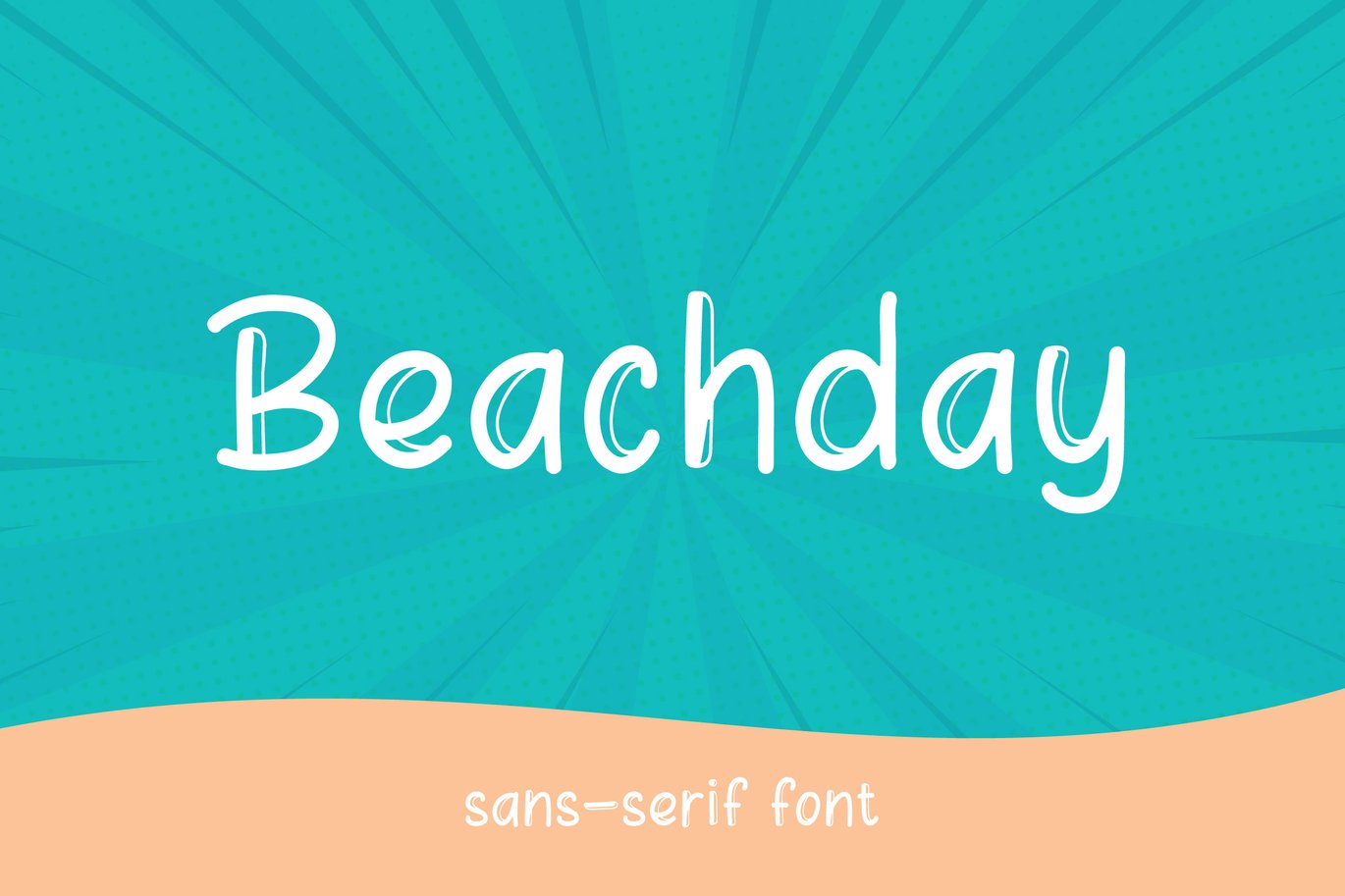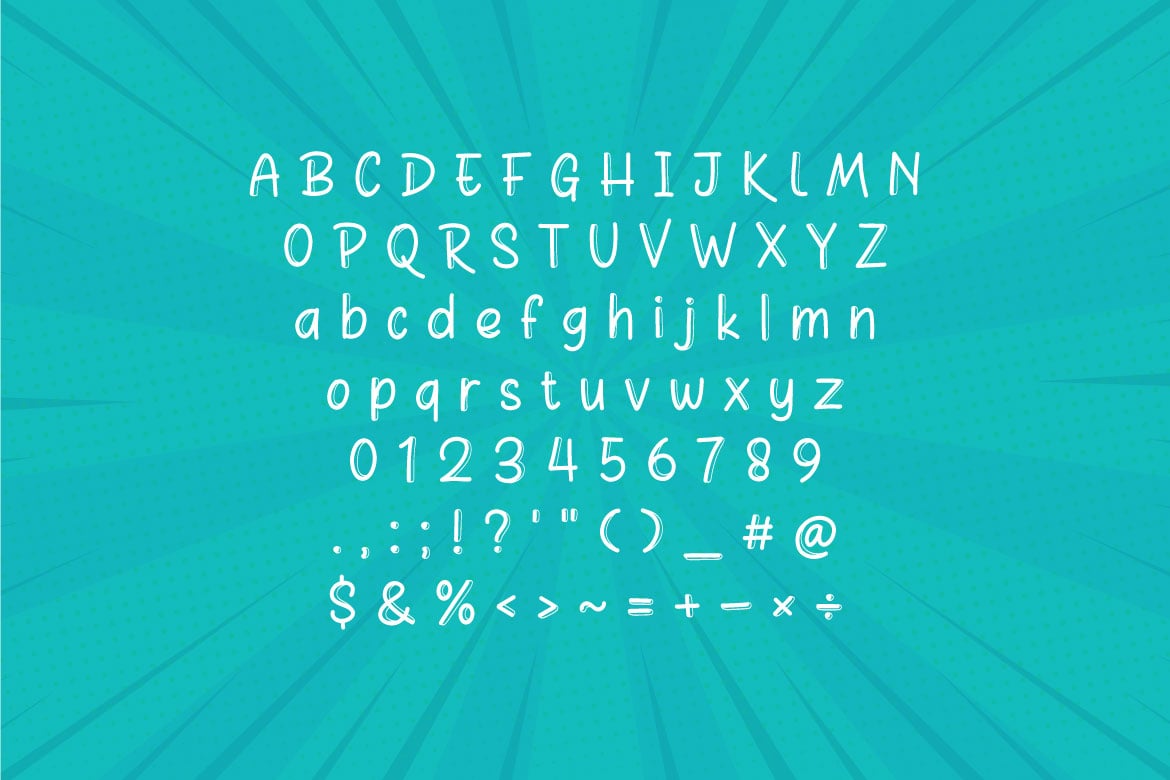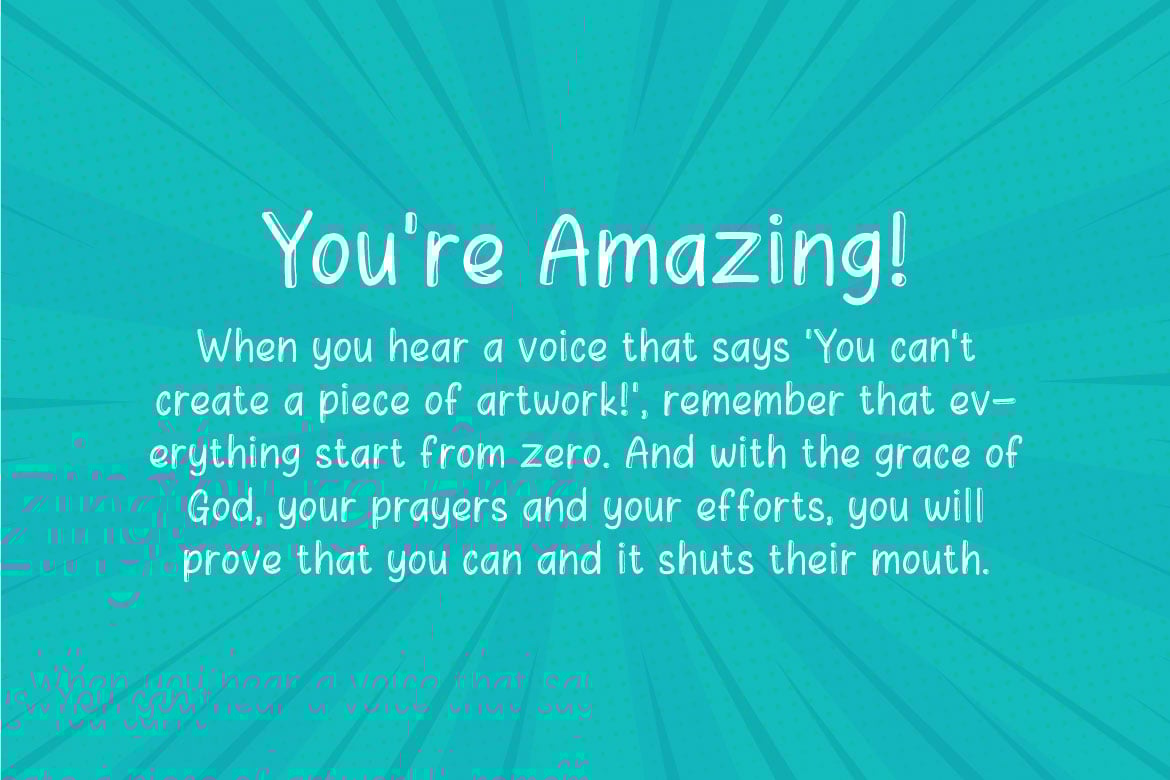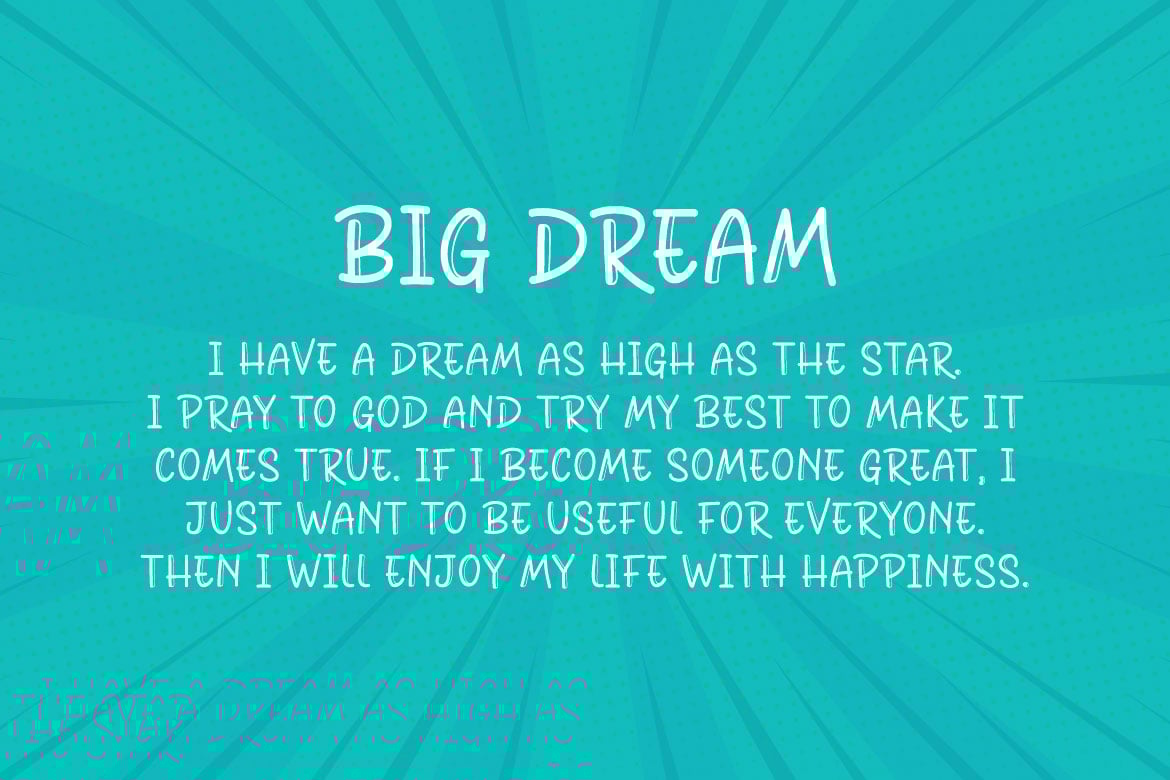
Beachday – Shadow Display Font
BEACHDAY is a modern clean sans serif display font. This font brings happy and cheerful ambience in each word.
Beachday can be used in any works such as book cover, music cover, children book, poster, advertisement, social media content, logo and many more.